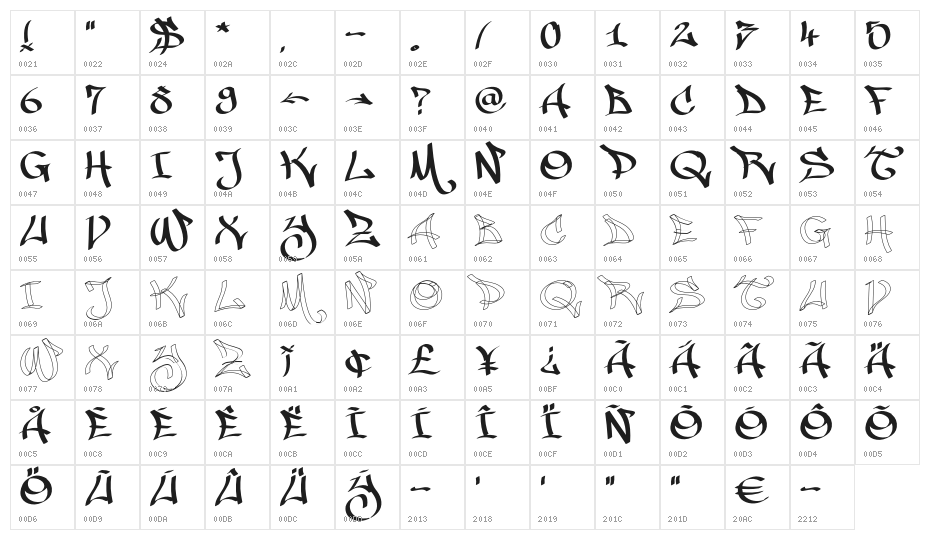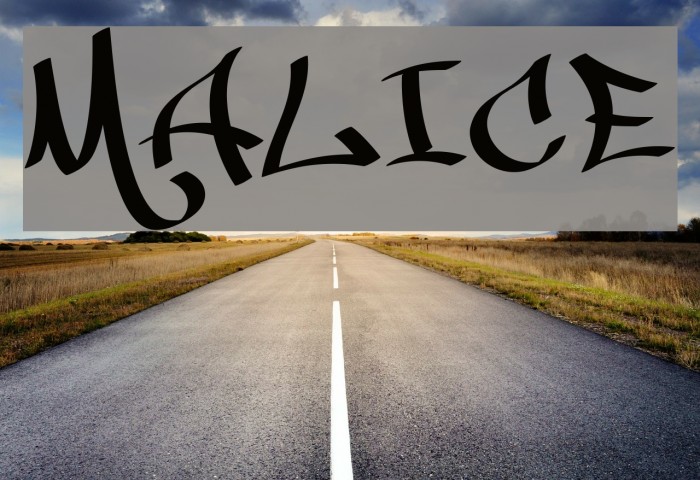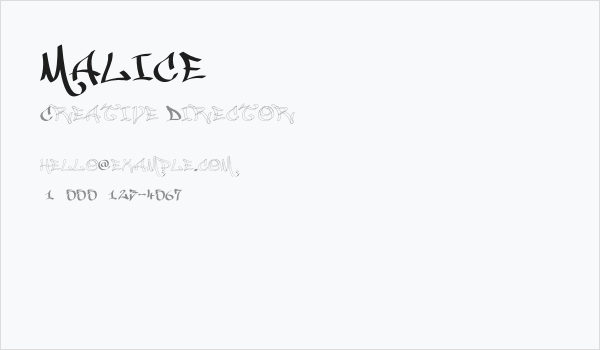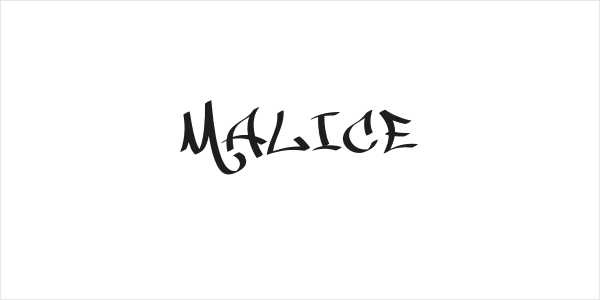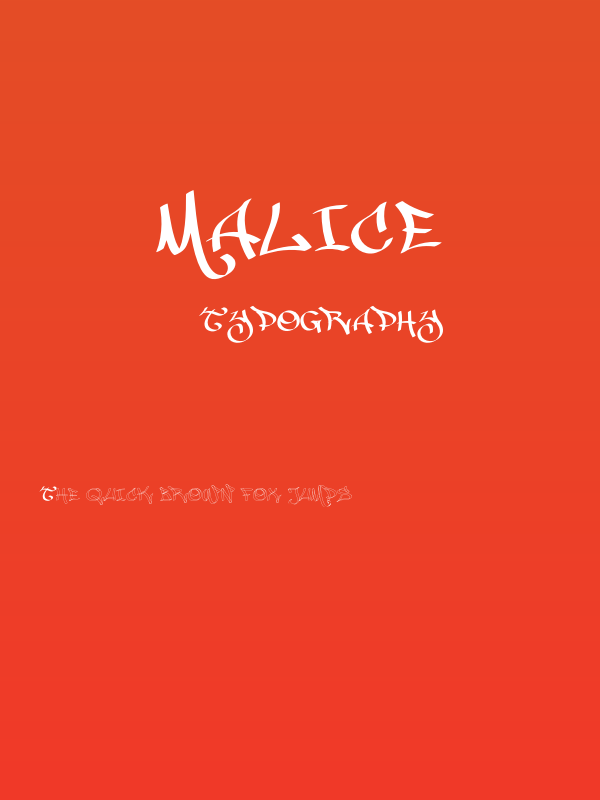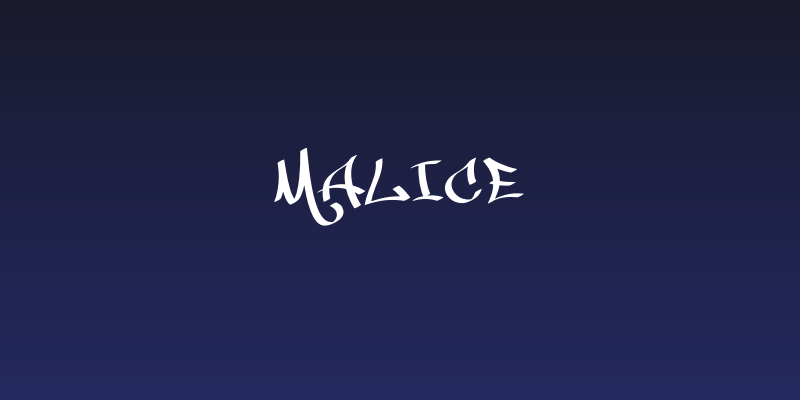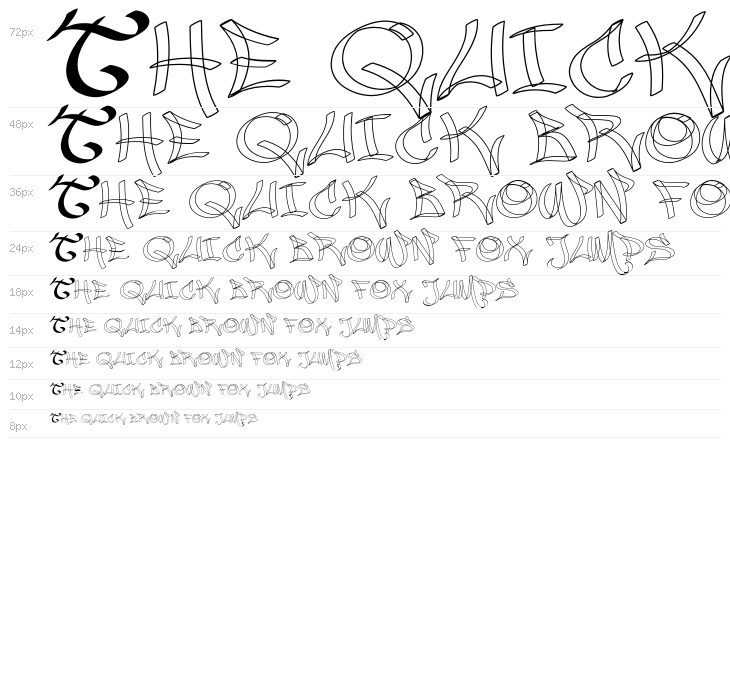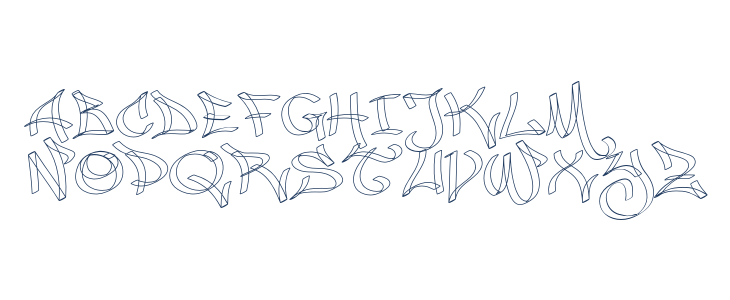
MALICE Font
MALICE Description
This font features a bold, dramatic style with sharp, angular edges and a gothic influence. The uppercase letters are particularly striking, with exaggerated curves and pointed serifs that give them a menacing appearance. The lowercase letters maintain the same edgy aesthetic, though they are slightly more restrained. Numbers are bold and consistent with the overall theme, while special characters add a touch of flair with their unique shapes. This font is perfect for projects that require a strong, impactful visual presence, such as posters, album covers, or branding for edgy or alternative brands.
| Overall Style | Gothic, Dramatic |
| Proposed Projects | Ideal for posters, album covers, branding for alternative brands, and any project needing a strong visual impact. |